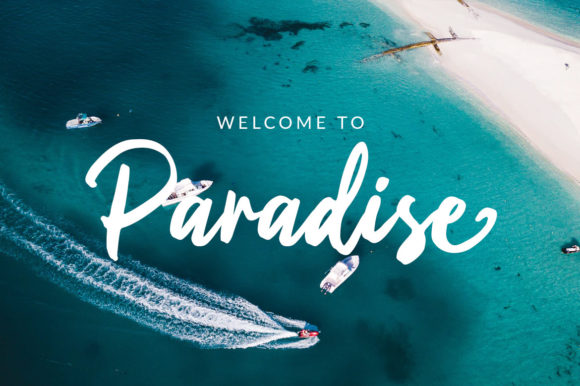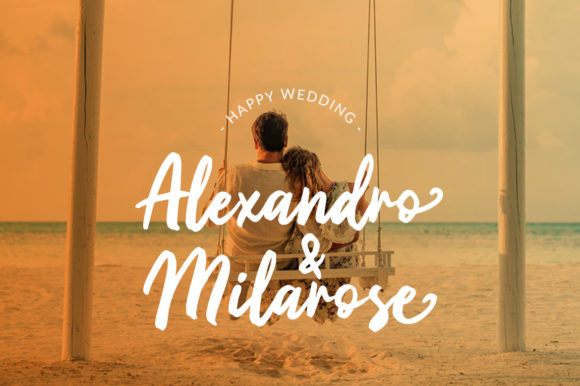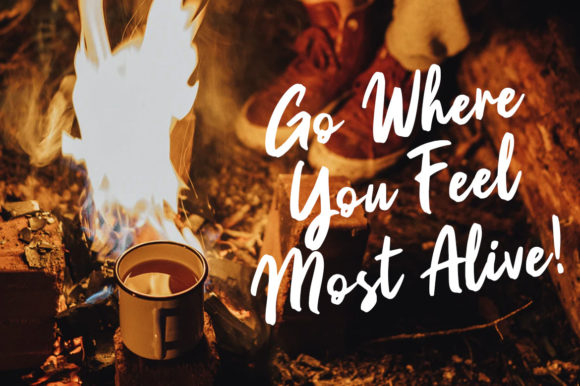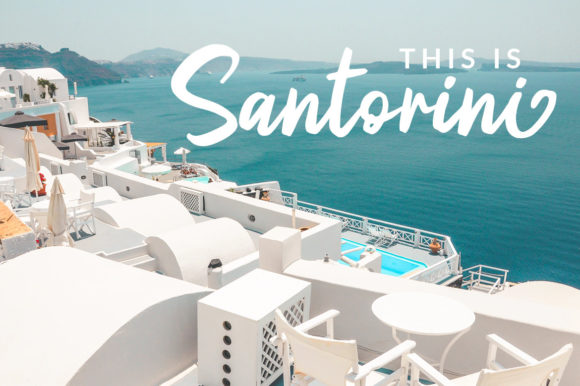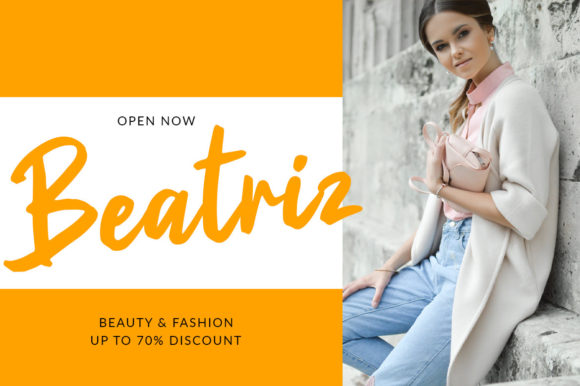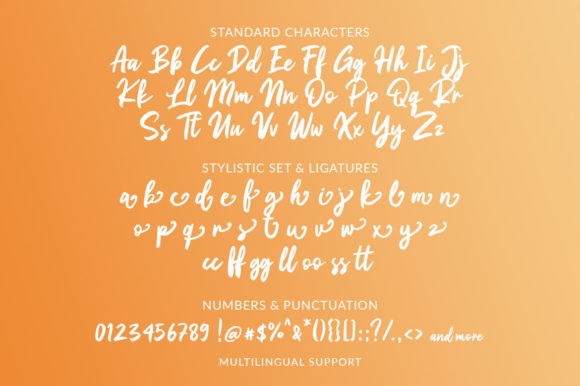
Discover the Elegance of Berthon Font: A Simple yet Versatile Handwritten Font
In the world of typography, a font can make or break a design. For designers and crafters looking for a simple yet elegant handwritten font, Berthon Font is an excellent choice. This beautifully crafted font is designed to add a touch of sophistication to a wide range of design projects. In this article, we’ll dive into the features and benefits of Berthon Font, and explore how it can elevate your designs.
What is Berthon Font?
Berthon Font is a simple and flowing handwritten font that exudes elegance and versatility. Its clean lines and smooth curves make it perfect for a variety of design applications, from digital projects to print materials. Whether you’re creating a logo, brochure, or social media graphic, Berthon Font is an adaptable choice that will help you achieve your design goals.
Key Features of Berthon Font
- Simple and Flowing Design: Berthon Font boasts a simple yet elegant design that flows smoothly across the page. Its handwritten style adds a touch of warmth and personality to any design.
- PUA Encoded: Berthon Font is PUA (Private Use Area) encoded, which means you can access all the glyphs and swashes with ease. This feature makes it easy to customize your text and add unique touches to your design.
- Versatile and Adaptable: Berthon Font is designed to work well in a variety of design contexts. Its adaptability makes it perfect for use in logos, headings, body text, and more.
Benefits of Using Berthon Font
So why choose Berthon Font for your design projects? Here are just a few benefits of using this beautiful font:
- Elegant and Sophisticated: Berthon Font adds a touch of elegance and sophistication to any design. Its simple yet flowing design makes it perfect for projects where you want to convey a sense of refinement and style.
- Easy to Read: The clean lines and smooth curves of Berthon Font make it easy to read, even at small sizes. This makes it perfect for body text, captions, and other applications where legibility is key.
- Customizable: With PUA encoding, you can access all the glyphs and swashes in Berthon Font, making it easy to customize your text and add unique touches to your design.
Design Ideas with Berthon Font
Berthon Font is a versatile font that can be used in a wide range of design projects. Here are a few ideas to get you started:
- Logos and Branding: Use Berthon Font to create a simple yet elegant logo that conveys your brand’s values and personality.
- Brochures and Flyers: Add a touch of sophistication to your print materials with Berthon Font. Its clean lines and smooth curves make it perfect for headings, body text, and captions.
- Social Media Graphics: Use Berthon Font to create eye-catching social media graphics that stand out from the crowd. Its elegant design makes it perfect for quotes, inspirational messages, and more.
In conclusion, Berthon Font is a simple yet elegant handwritten font that is perfect for designers and crafters looking for a versatile and adaptable font. With its PUA encoding, elegant design, and ease of use, Berthon Font is an excellent choice for a wide range of design projects. Whether you’re creating a logo, brochure, or social media graphic, Berthon Font is sure to elevate your designs and add a touch of sophistication.